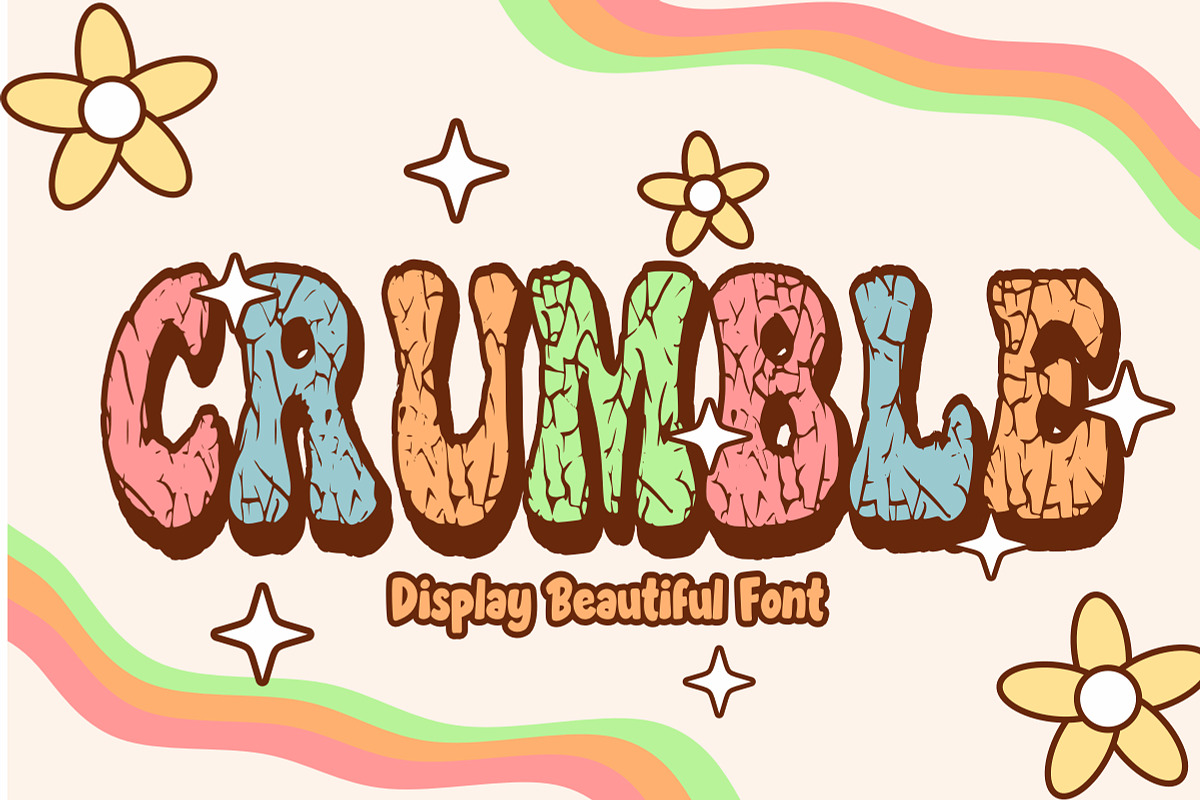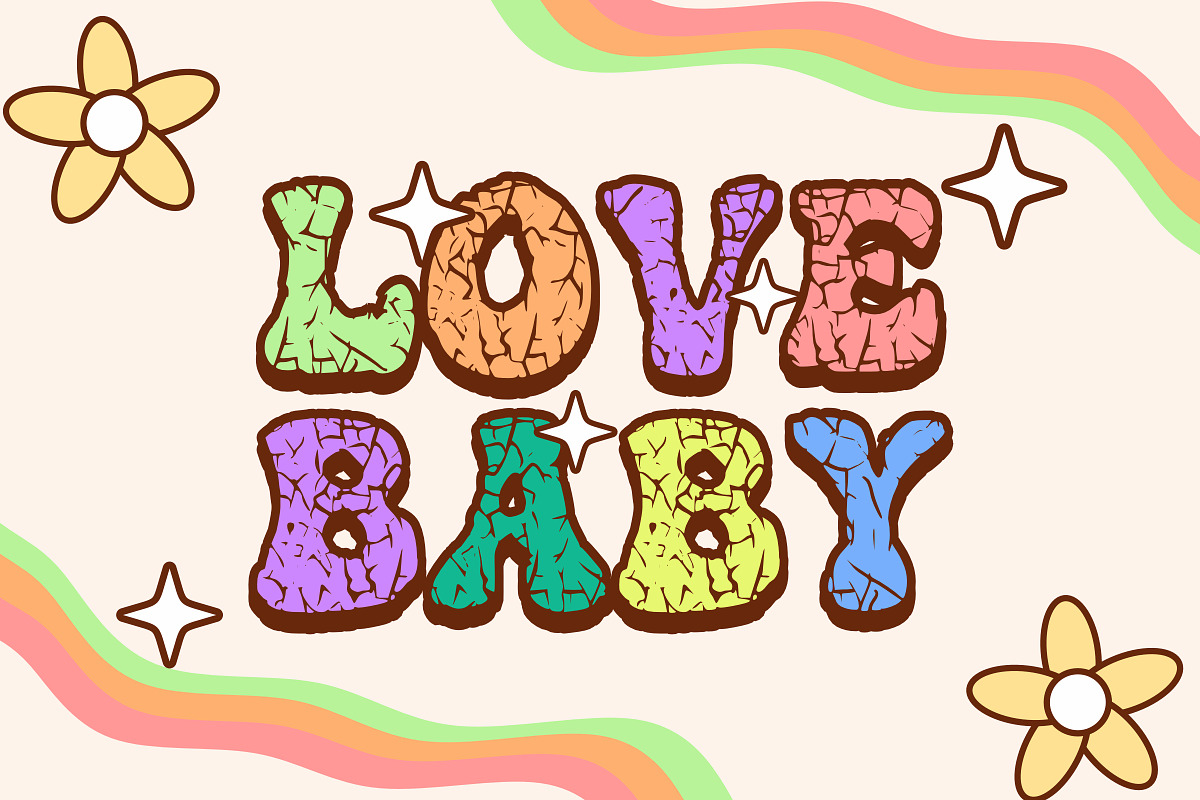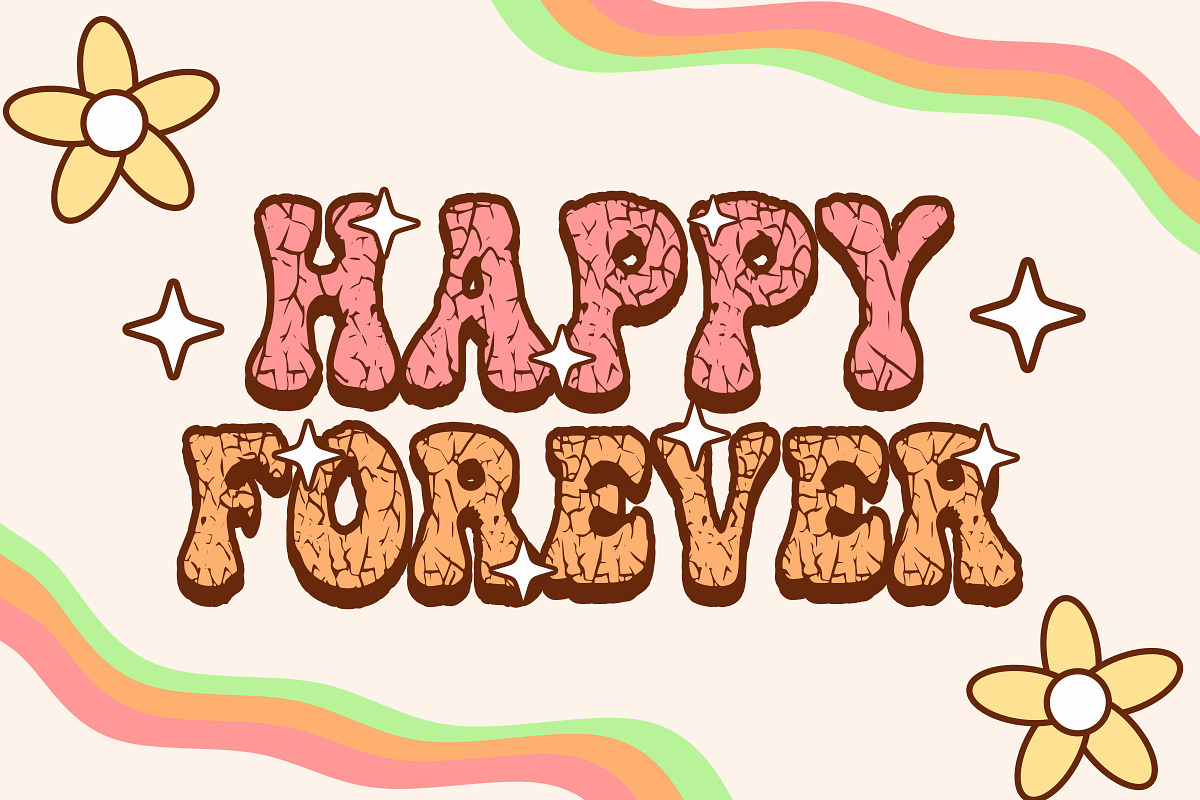
Crumble - Comic Font Types
Crumble is a charming retro display font that captures the essence of vintage design. Its playful curves and cracked lines evoke uniqueness, reminiscent of the fun styles of the past. With its unique character, Crumble adds a touch of whimsy to any project, making it perfect for creative posters, logos and titles that need a little retro flair.